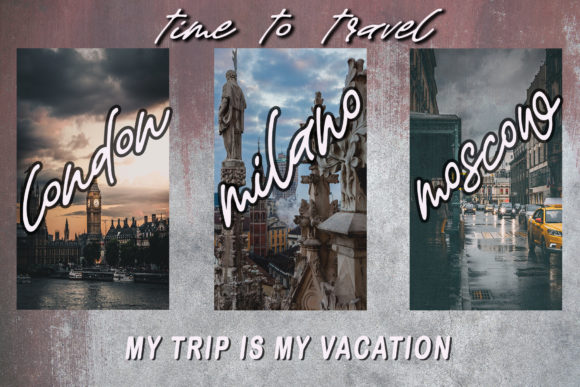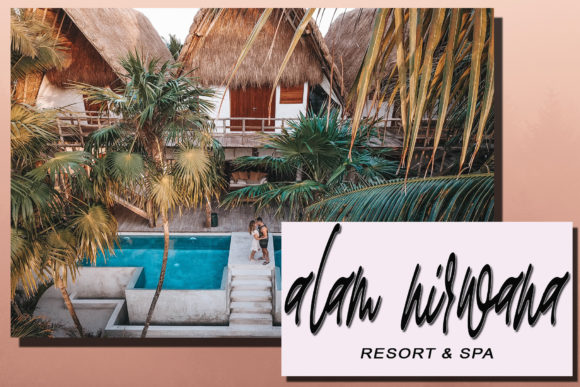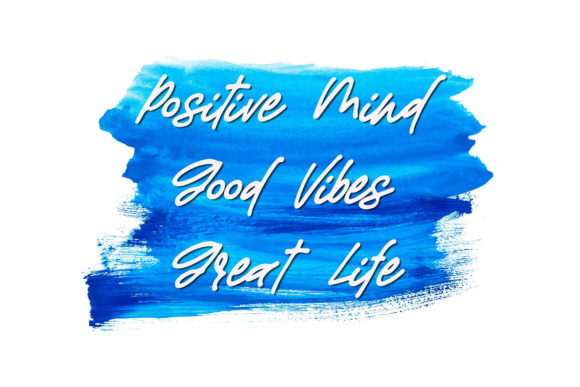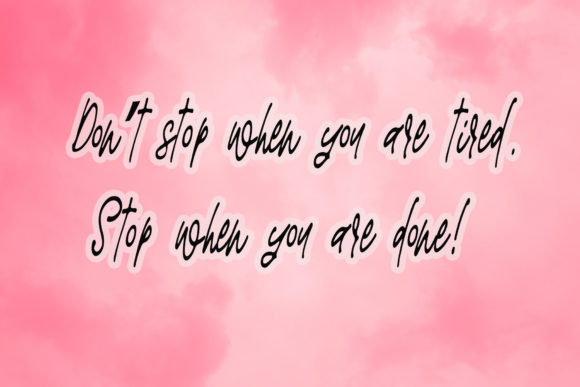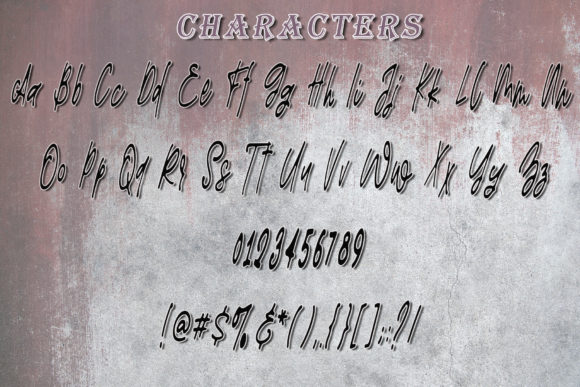
Introduction to Limosin Font
Do you remember that moment when your creative project finally comes together, and everything feels just right? The colors, the layout, the typography – it’s all in perfect harmony. For many designers, that moment is often made possible by the right font. And that’s where the Limosin Font comes in – a clean and flowing handwritten font that can elevate even the most mundane designs to new heights.
With its beautiful and well-balanced characters, the Limosin Font is a versatile design resource that can be used in a wide range of creative projects. Whether you’re working on a brochure, a website, or a social media campaign, this high-quality font is sure to make your design stand out. And the best part? It’s available for free download, making it an accessible and valuable resource for designers of all levels.
Key Features of Limosin Font
- High-quality, professional design suitable for creative projects and designs
- Unique characteristics: Distinctive, elegant script font ideal for wedding invitations, branding, and other creative projects
Honest Review: Limosin Font
As a designer, I’ve had the pleasure of working with numerous fonts, but the Limosin Font stands out for its unique charm and versatility. I was thrilled to find it available for a free download, which made it an instant hit in my design arsenal.
What works well: ✨ The Limosin Font’s elegant and sophisticated design makes it perfect for creative projects that require a touch of luxury. Its high-quality texture and transparent background allow for seamless integration with any design resource, making it a great addition to any designer’s toolkit.
Some of the notable features that caught my attention include:
- Elegant and sophisticated design
- High-quality texture
However, I did encounter a few limitations: ⚠️ The font can be a bit challenging to read at smaller font sizes, and it may not be the best choice for projects that require a lot of text. Additionally, the font’s design can be quite busy, which may not be suitable for all design projects.
Overall, I’m impressed with the Limosin Font’s unique design and versatility. While it may have some limitations, it’s a valuable addition to any designer’s collection and a great resource for any creative project.
Limosin Font
The Limosin Font is a high-quality, elegant script font perfect for any creative project. With its transparent background, this font is ideal for designers looking for a stylish and versatile design resource.
Tips for Getting the Most Out of Limosin Font
To get the most out of the Limosin Font, experiment with different font sizes, colors, and combinations to create unique and eye-catching designs.
The Limosin Font is perfect for:
- Editorials and magazine design